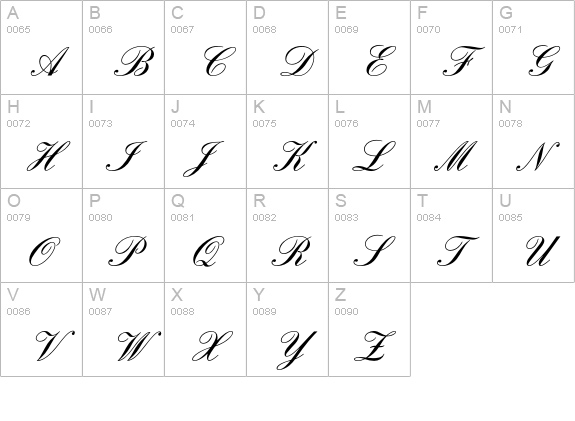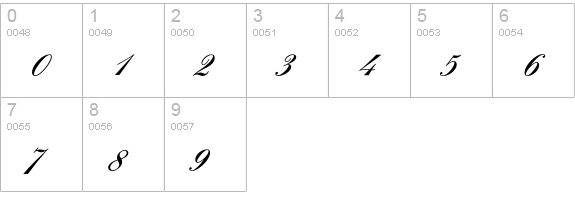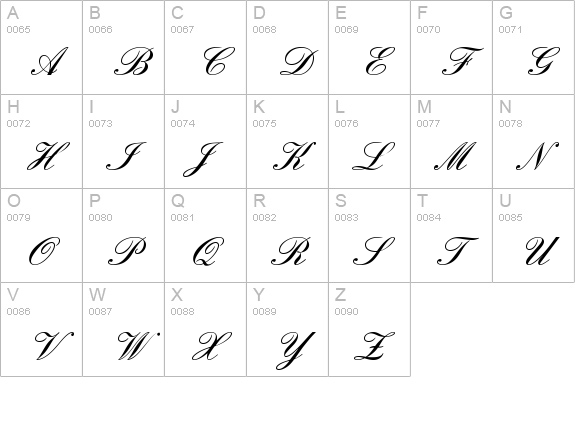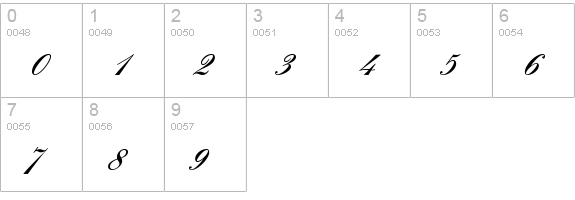
EnglishScriptEF-DemiBold Font Details
EnglishScriptEF-DemiBold is a sub-bold, structured variant in the EnglishScriptEF typeface family \xE2\x80\x94 well suited to sub-headlines and emphasised passages.
EnglishScriptEF-DemiBold font is a stylish and elegant typeface that exudes sophistication and charm. With its bold and refined letterforms, this font is perfect for adding a touch of class to your design projects. Whether you are creating invitations, posters, or branding materials, EnglishScriptEF-DemiBold will surely make a statement. The best part is that this font is available for free download at FontsMarket.com. You can easily access this high-quality typeface and enhance your creative work without any cost. Don't miss the opportunity to elevate your designs with the timeless beauty of EnglishScriptEF-DemiBold font. Download it now and start creating stunning visuals that truly stand out.